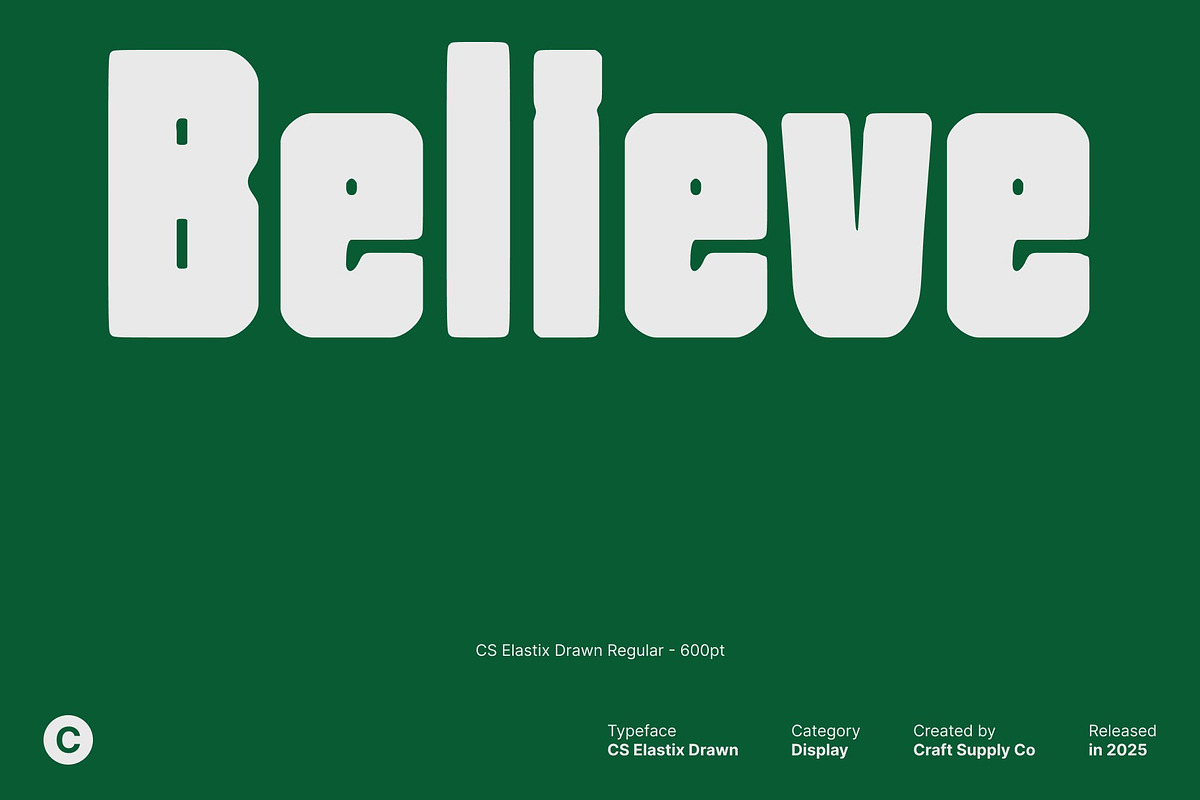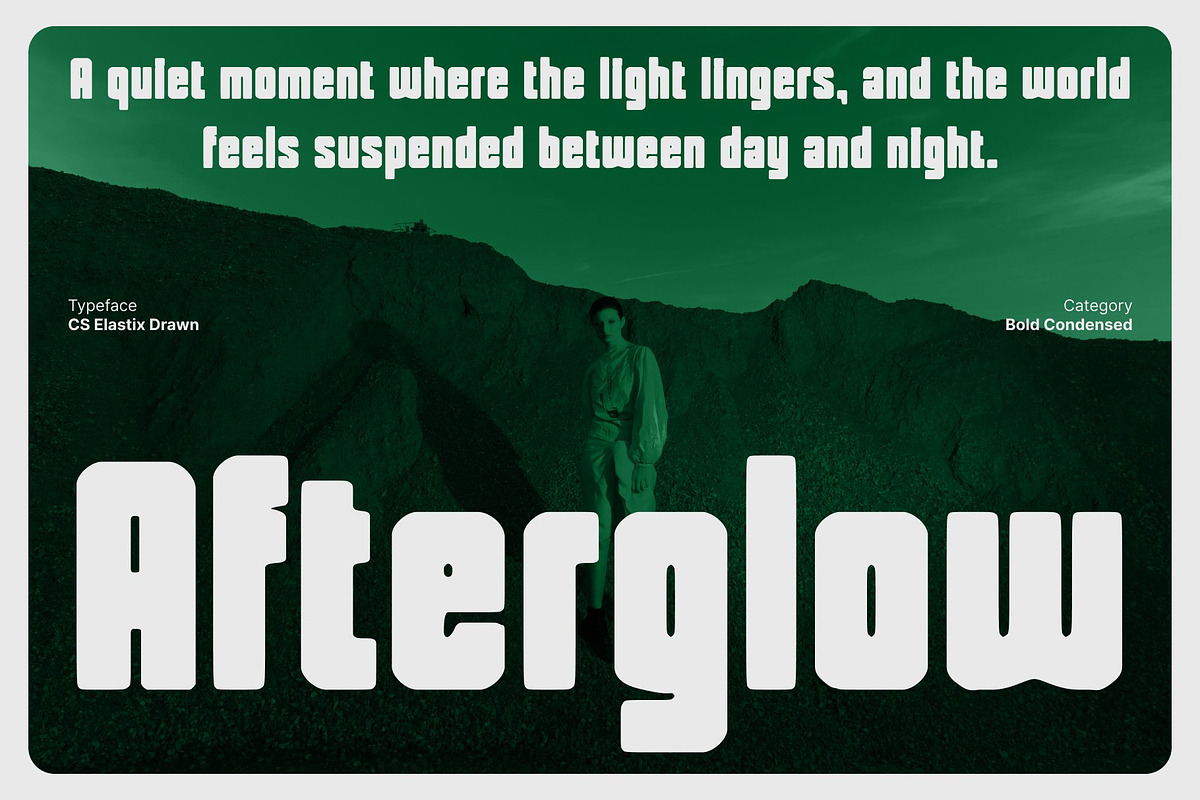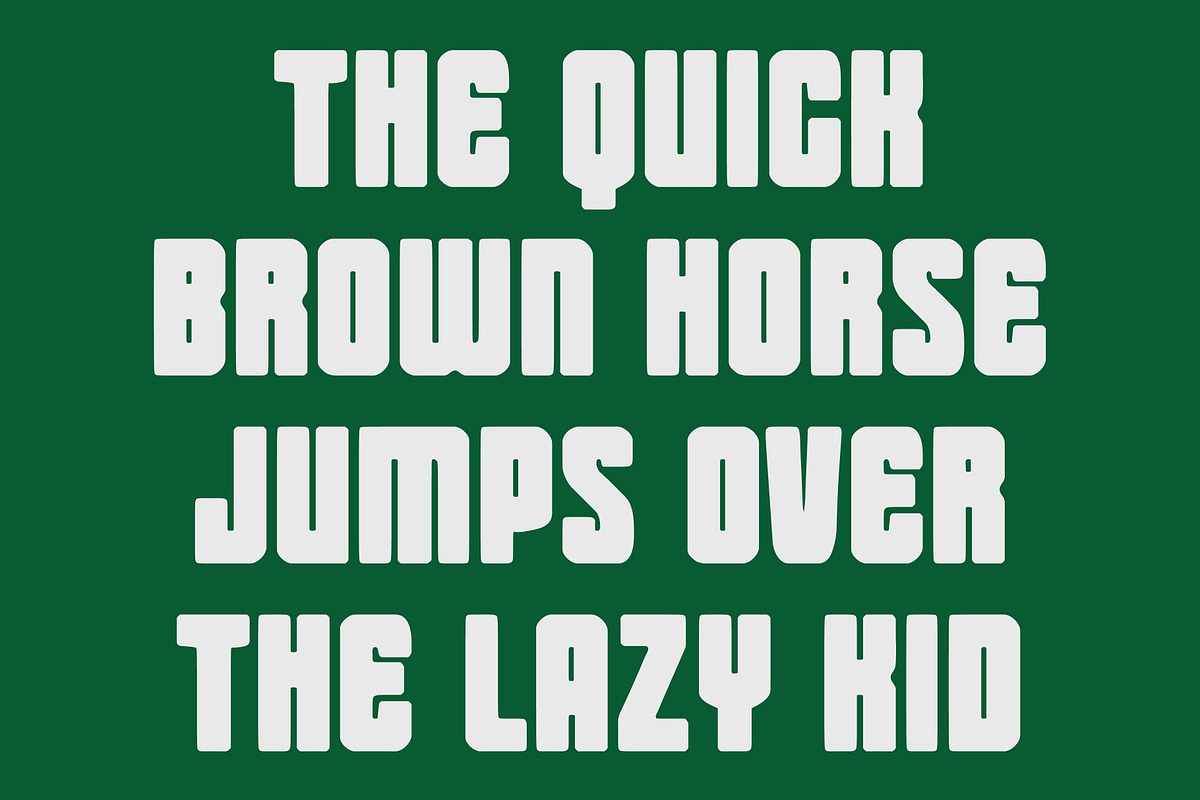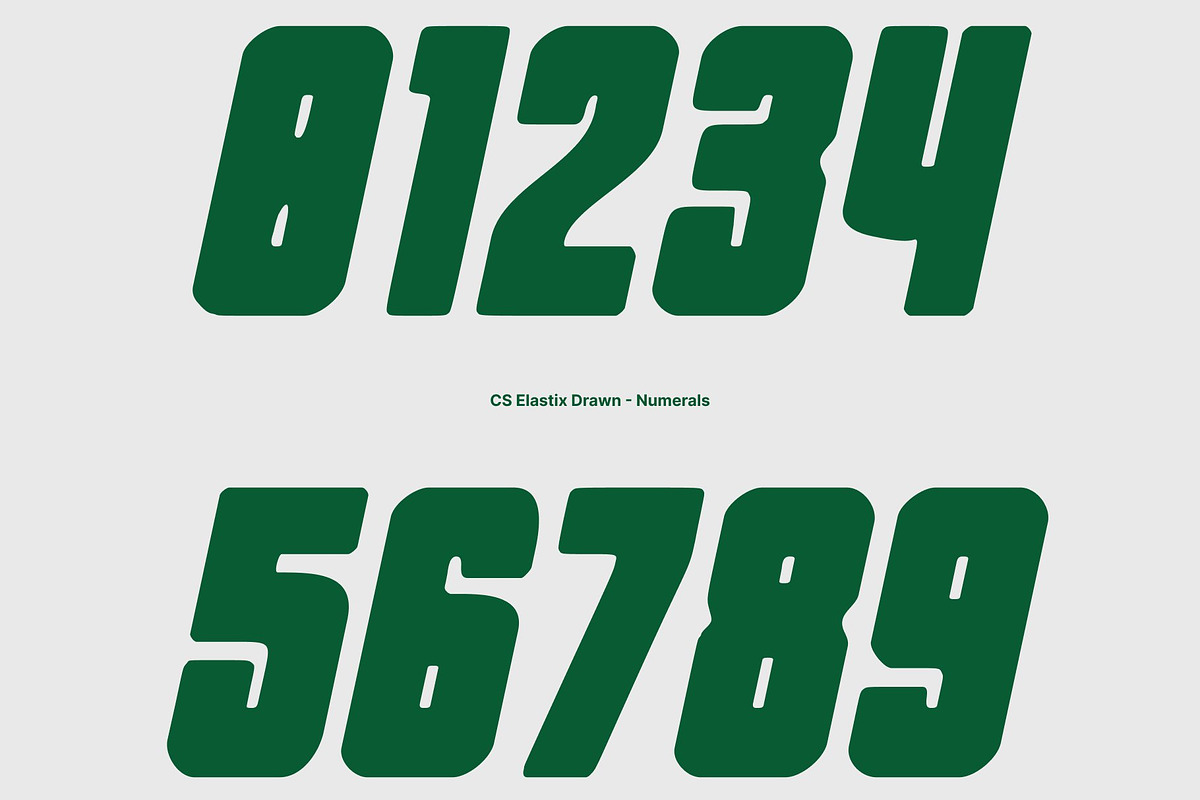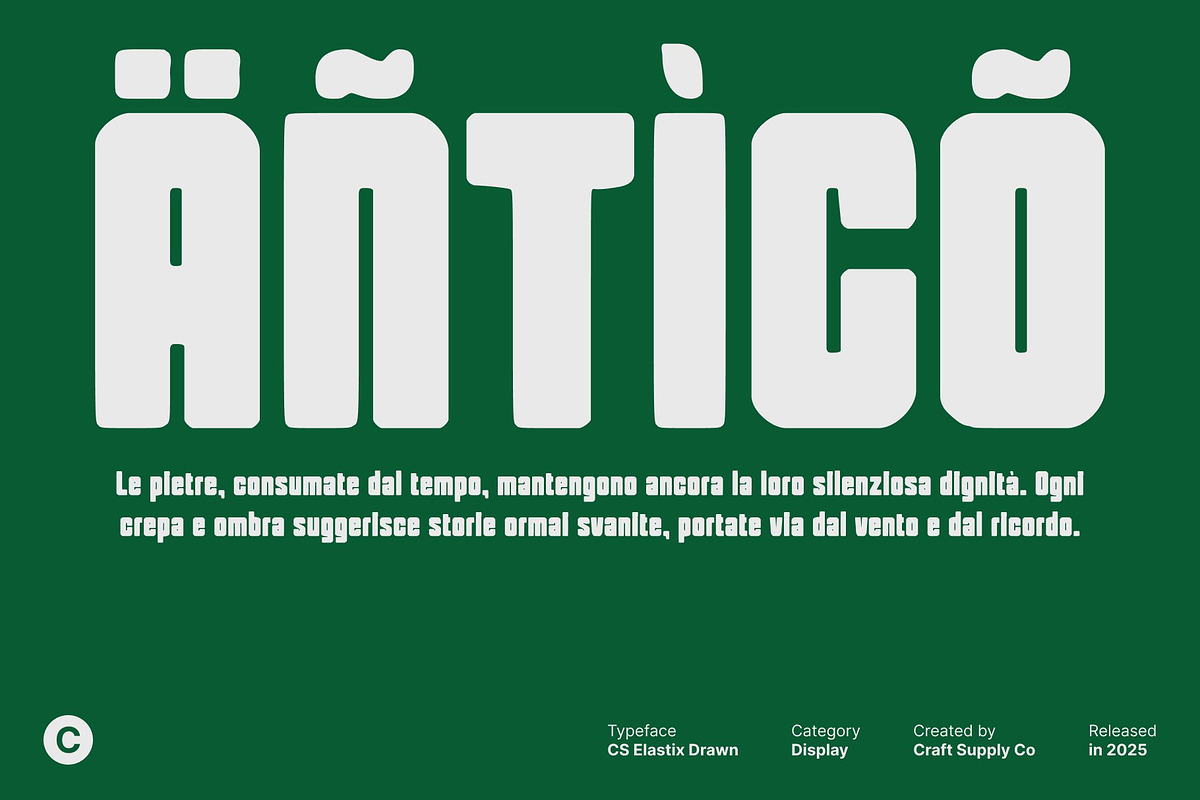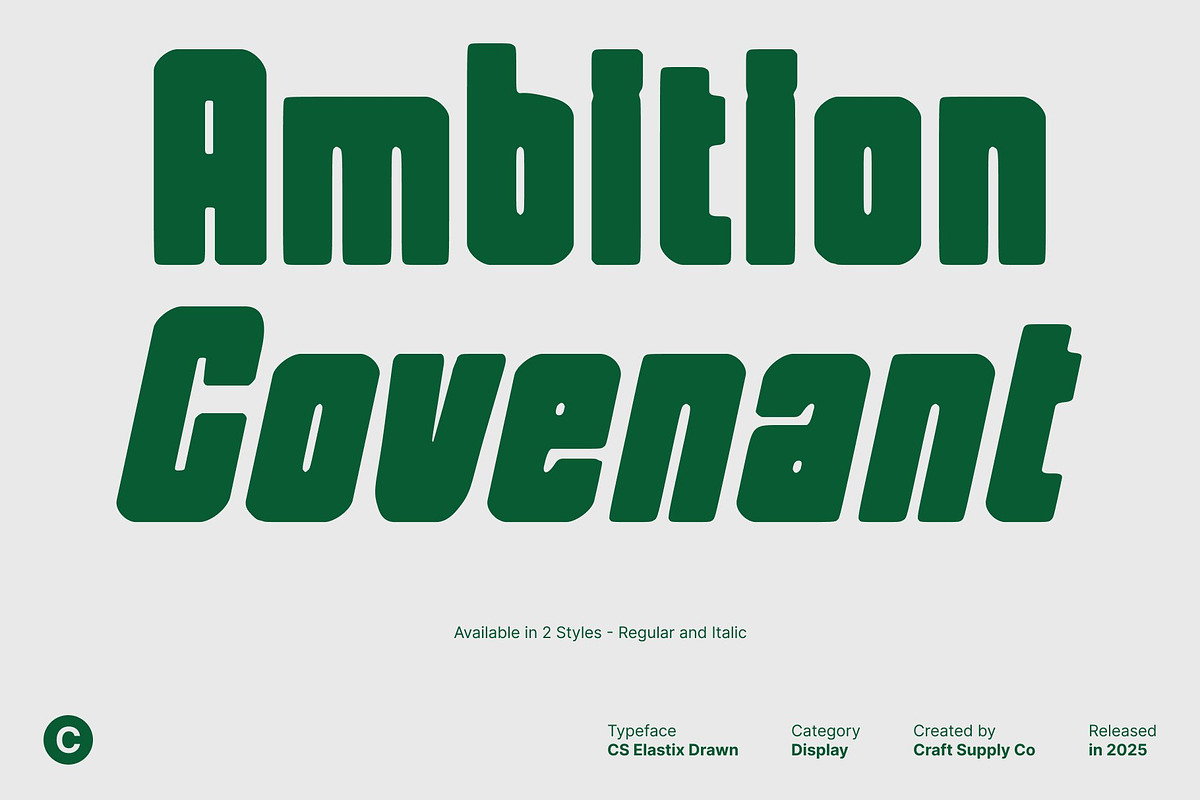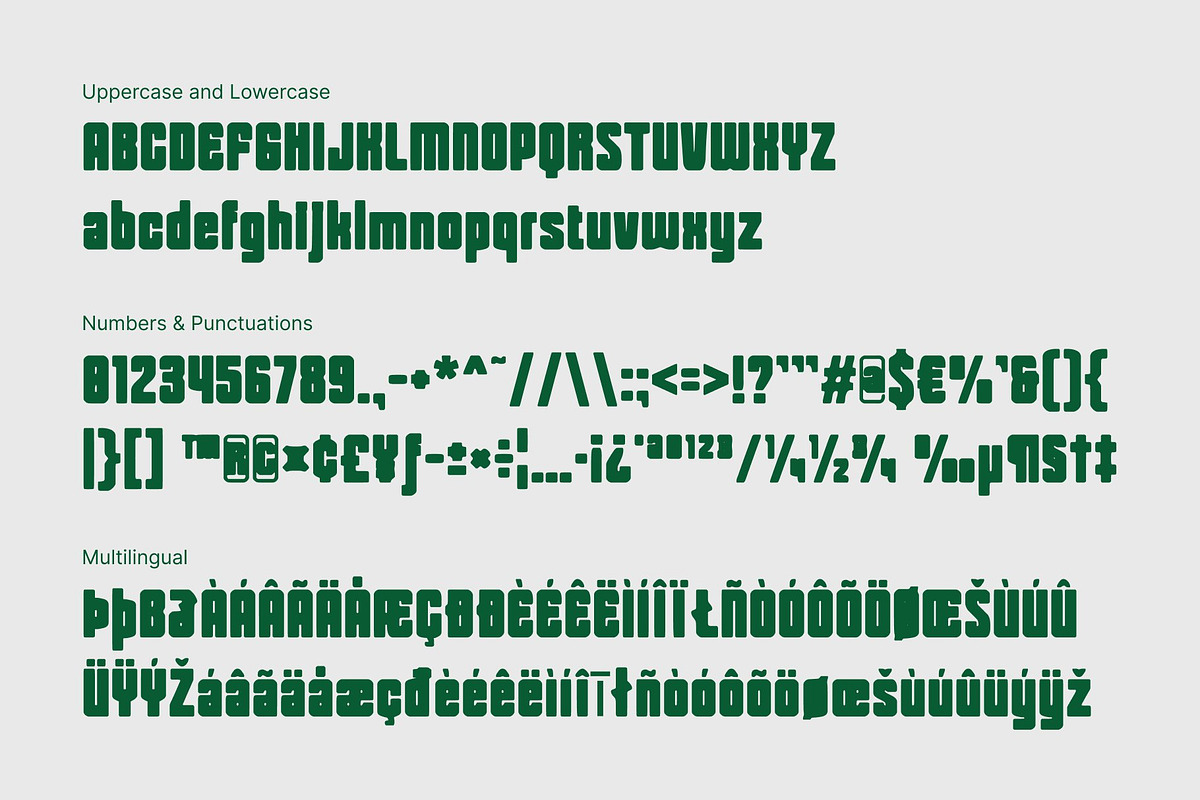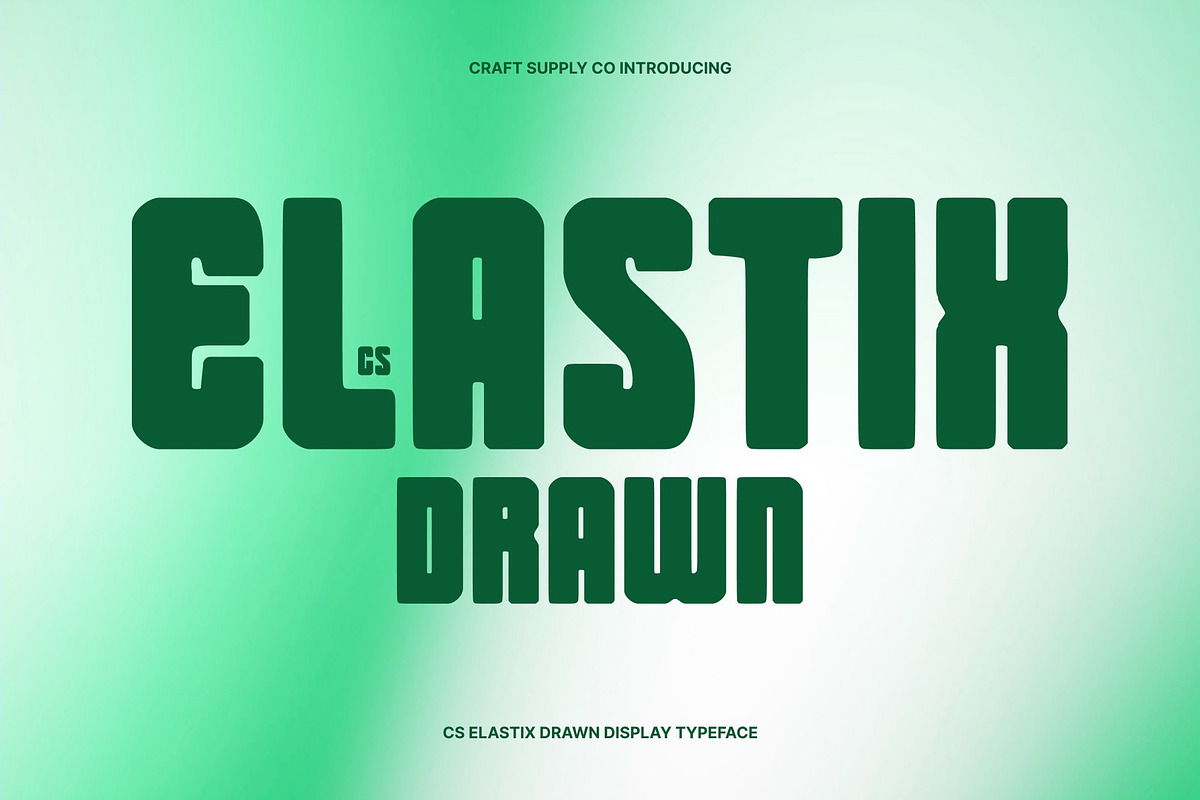
CS Elastix Drawn
CS Elastix Drawn – Bold Display Sans Serif: Impactful, Expressive, and Dynamic
Bold and Striking Display This is a bold display sans serif font designed to command attention in every context. Its strong, clean letterforms convey confidence and authority, making it perfect for headlines, posters, and branding projects that need to stand out. The bold structure ensures maximum visual impact, capturing the viewer’s focus instantly.
Hand-Drawn Effect for Unique Character Enhanced with a hand-drawn effect, gains an expressive, organic personality that sets it apart from standard sans serif fonts. Subtle imperfections and textured strokes add depth and originality, giving each letter a dynamic, artistic quality. This handmade touch brings energy and creativity to any design.
Perfect for High-Impact Design The assertive forms of make it ideal for projects that require strong visual statements. From bold headlines and poster art to distinctive branding and promotional materials, the font delivers clarity and presence while maintaining a sense of style and originality.
Versatile for Creative Applications This font adapts effortlessly across print and digital mediums. Its combination of bold, modern structure and artistic hand-drawn texture makes it suitable for a wide range of applications, including editorial design, social media graphics, and product packaging. This font ensures your message is both memorable and visually compelling.